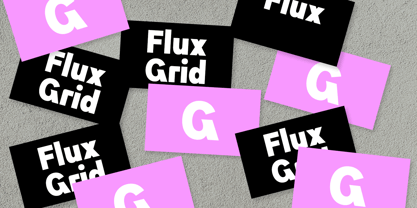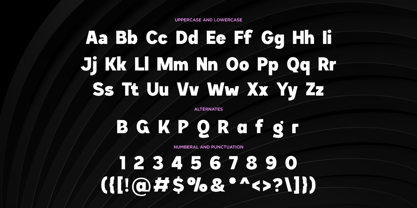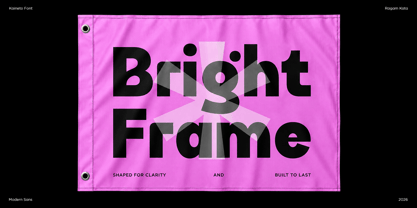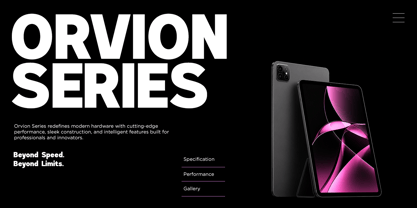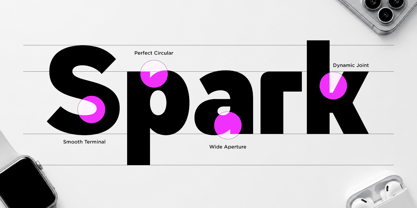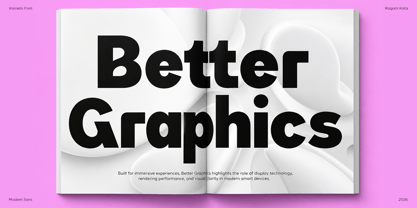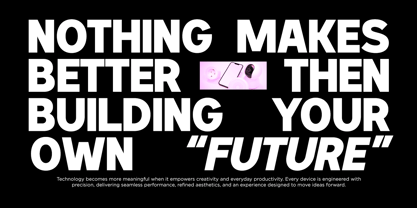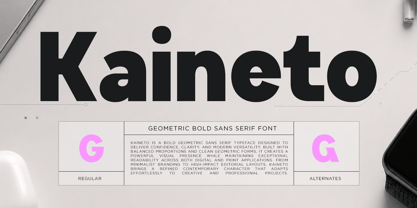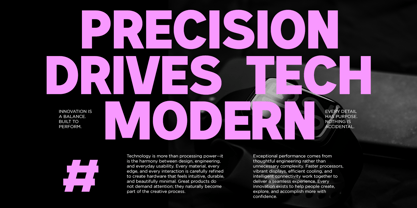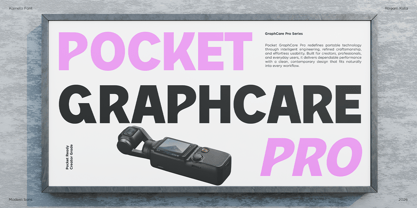
Kaineto
Kaineto is a geometric bold sans serif font crafted to deliver a clean, confident, and contemporary visual presence. Built with strong proportions and balanced letterforms, it creates a striking impression that stands out across both digital and print media. Its modern geometric structure makes it an excellent choice for designers seeking a bold yet refined typographic solution.
Designed for versatility, Kaineto works seamlessly across a wide range of creative projects, including logos, branding, technology startups, editorial layouts, posters, packaging, websites, UI/UX design, advertising, and social media content. Whether you're building a futuristic identity or a minimalist corporate brand, this typeface provides exceptional readability while maintaining a distinctive visual character.
Kaineto with impactful headlines to memorable brand identities, Kaineto is the perfect geometric sans serif font for modern designers who value clarity, strength, and timeless style.
• Regular and Italic
• Stylistic Alternates
• Uppercase and Lowercase
• Number, Symbol, and Punctuation
• Multilingual Support